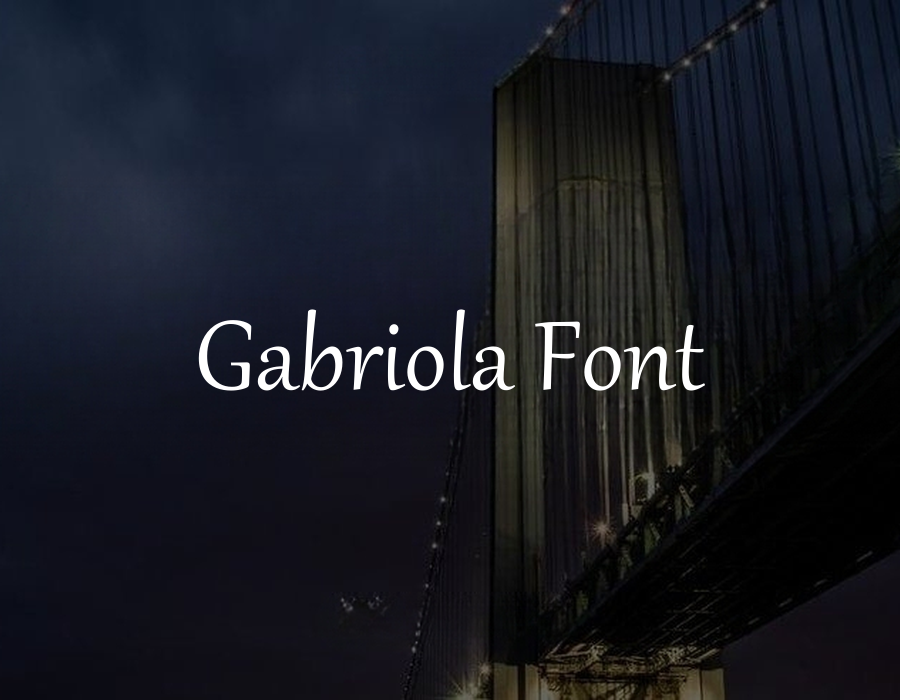
Gabriola Font is the elegant and gorgeous display font family, John Hudson designed this font typeface. This font family has used in Windows 8, Windows 7 and MS Office 2010.
The Italic typeface comes with a huge character set aiding most of the European languages, small caps, pictograms, and arrows.
Design Of Gabriola Font
Gabriola font by means of Alfredo Marco Pradil is clean, crisp and tremendously legible even for the smaller texts. This combination uses it in all caps and with a lightweight, turning your headlines into both delicate and modern-day.